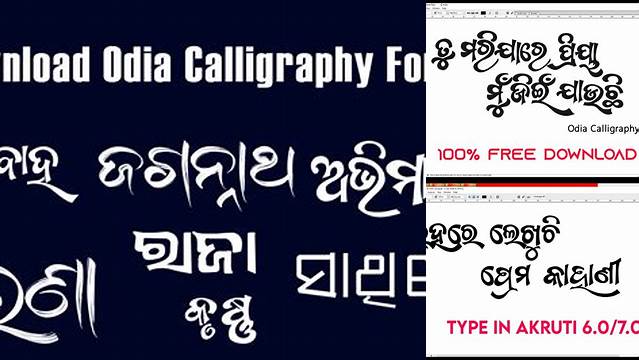
Create Odia Calligraphy Fonts Free: Generators & Tips
Are you looking to create stunning Odia calligraphy without spending a fortune? Look no further! In this article, we'll explore the world of free Odia calligraphy font generators, guiding you through the best options available and showing you how to create beautiful, eye-catching designs. Whether you're a seasoned designer or just starting out, these tools will help you elevate your Odia script projects.
Understanding Odia Calligraphy and Its Importance
Odia calligraphy, deeply rooted in the rich cultural heritage of Odisha, India, is an art form that transcends mere writing. It's a visual representation of the Odia language, imbued with historical significance and aesthetic beauty. The flowing curves and intricate strokes of Odia script lend themselves perfectly to calligraphy, creating designs that are both elegant and expressive. Understanding the importance of Odia calligraphy involves appreciating its role in preserving cultural identity and promoting artistic expression. The script itself is derived from the Kalinga script, which dates back to ancient times, and its evolution reflects the historical and cultural influences that have shaped the region. Calligraphy, in this context, is more than just decorative writing; it's a medium through which stories are told, traditions are honored, and artistic skills are showcased.
In modern times, the relevance of Odia calligraphy extends beyond traditional uses. It's increasingly being incorporated into graphic design, branding, and digital media to add a touch of authenticity and cultural flair. From wedding invitations to book covers, the distinctive style of Odia calligraphy can enhance the visual appeal and convey a sense of heritage. By using free Odia calligraphy font generators, designers and enthusiasts can easily access and utilize this art form, making it more accessible and ensuring its continued relevance in contemporary design. These tools democratize the art, allowing anyone with a passion for Odia culture to create stunning visual content that celebrates the beauty of the language.
Moreover, Odia calligraphy plays a crucial role in preserving and promoting the Odia language itself. In an era of globalization and increasing dominance of English and other major languages, maintaining the visibility and usage of regional languages is essential. Calligraphy helps to keep the Odia script alive and relevant, inspiring younger generations to learn and appreciate their linguistic heritage. By incorporating Odia calligraphy into everyday designs and artistic projects, we can ensure that the language continues to thrive and remains an integral part of the cultural landscape. The art form serves as a bridge between the past and the present, connecting people to their roots and fostering a sense of pride in their cultural identity.
Top Free Odia Calligraphy Font Generators
Let's dive into some fantastic free Odia calligraphy font generators that you can use right now. These tools offer a range of options, from simple text transformations to more advanced customization features.
1. Fontstruct
Fontstruct is a unique, browser-based font editor that allows you to create your own fonts using geometric shapes. While it's not specifically an Odia calligraphy font generator, it provides the tools you need to design your own custom Odia fonts. It's a bit more hands-on, but the results can be truly unique. The platform operates on a modular principle, where users construct glyphs from a grid of geometric shapes called "bricks." This method allows for a high degree of precision and control, making it possible to create intricate and stylized letterforms. The user interface is intuitive, with a drag-and-drop system that simplifies the design process. Although Fontstruct is primarily known for creating pixel-based and geometric fonts, its versatility enables users to experiment with different styles and techniques, including those relevant to Odia calligraphy.
To create Odia calligraphy fonts on Fontstruct, users would need a strong understanding of the Odia script and its calligraphic forms. The process involves carefully constructing each character, paying attention to the unique curves and strokes that define Odia writing. This can be a challenging but rewarding task, as it allows for complete customization and the creation of truly original fonts. The platform's grid-based system encourages precision, ensuring that each character is well-formed and consistent with the overall design. Additionally, Fontstruct's community features allow users to share their creations, collaborate with others, and gain inspiration from a wide range of font designs. This collaborative environment can be particularly valuable for those new to font design, providing opportunities to learn from more experienced users and receive feedback on their work.
Moreover, Fontstruct offers extensive documentation and tutorials to help users get started with the platform. These resources cover everything from the basics of font design to advanced techniques for creating complex glyphs. The platform also supports the import and export of font files, making it easy to integrate custom fonts into various design projects. While Fontstruct may require a steeper learning curve compared to simpler font generators, the level of control and customization it provides makes it an excellent choice for designers who want to create truly unique Odia calligraphy fonts. By combining creativity, technical skills, and a deep understanding of the Odia script, users can leverage Fontstruct to produce stunning and original typographic designs.
2. Calligraphr
Calligraphr is a web application that turns your handwriting into a font. You can draw Odia characters on paper, upload them, and the tool will convert them into a usable font file. This is a great way to personalize your Odia calligraphy and create something truly unique. The process begins with downloading a template from the Calligraphr website. This template consists of a grid with pre-defined spaces for each character, number, and symbol. Users then print out the template and hand-write or draw each character within its designated space. The key to a successful font lies in consistency, so it's important to maintain a uniform style and size for each character.
Once the template is filled, users scan or photograph it and upload the image to Calligraphr. The application then uses optical character recognition (OCR) technology to identify each character and convert it into a digital format. Users have the option to review and edit each character to ensure accuracy and make any necessary adjustments. This editing process is crucial for refining the font and correcting any errors that may have occurred during the OCR process. Calligraphr also allows users to add additional characters, symbols, and ligatures to further customize their font. This is particularly useful for creating Odia calligraphy fonts, which often involve complex combinations of characters and decorative elements.
After the editing process is complete, Calligraphr generates a downloadable font file in various formats, including TTF and OTF. Users can then install the font on their computer and use it in any application that supports custom fonts. This makes it easy to incorporate personalized Odia calligraphy into a wide range of projects, from digital documents to graphic designs. Calligraphr offers both free and paid plans, with the free plan allowing users to create a limited number of characters and fonts. The paid plans offer additional features, such as unlimited characters, commercial use licenses, and advanced customization options. Overall, Calligraphr is a user-friendly and versatile tool for creating personalized Odia calligraphy fonts from your own handwriting.
3. BirdFont
BirdFont is a free, open-source font editor that works on Windows, Mac, and Linux. It's a more advanced tool than some of the online generators, but it offers a lot of flexibility and control over your font design. With BirdFont, users can create and edit fonts from scratch, import existing fonts for modification, and export their creations in various formats, including TTF, EOT, and SVG. The software's intuitive interface and comprehensive feature set make it suitable for both beginners and experienced font designers.
One of the key features of BirdFont is its support for Bézier curves, which are essential for creating smooth and precise letterforms. Users can easily manipulate Bézier curves to shape the contours of each character, ensuring that the font looks professional and polished. BirdFont also includes a range of drawing tools, such as pencils, brushes, and erasers, which allow users to create intricate details and add unique stylistic elements to their fonts. The software's glyph editor provides a detailed view of each character, allowing users to fine-tune every aspect of its design. Users can adjust the spacing, kerning, and hinting of each glyph to optimize the font's appearance and readability.
BirdFont also supports the creation of ligatures, which are special characters that combine two or more letters into a single glyph. Ligatures are commonly used in calligraphy to create a more fluid and elegant appearance. With BirdFont, users can easily create custom ligatures for their Odia fonts, adding a touch of authenticity and artistry to their designs. The software's scripting capabilities allow advanced users to automate repetitive tasks and create custom tools for font design. BirdFont supports the Python scripting language, which provides a powerful and flexible way to extend the software's functionality. Overall, BirdFont is a comprehensive and versatile font editor that offers everything you need to create stunning Odia calligraphy fonts. Its free and open-source nature makes it accessible to everyone, and its extensive feature set ensures that you have the tools you need to bring your creative vision to life.
Tips for Designing Beautiful Odia Calligraphy
Creating beautiful Odia calligraphy involves more than just using a font generator. Here are some tips to help you achieve stunning results:
- Understand the Basics: Familiarize yourself with the fundamental strokes and shapes of the Odia script.
- Practice Regularly: Like any art form, calligraphy requires practice. Dedicate time to honing your skills.
- Experiment with Styles: Try different weights, slants, and flourishes to find a style that suits your taste.
- Pay Attention to Spacing: Proper spacing between letters and words is crucial for readability and visual appeal.
- Use High-Quality Tools: If you're drawing by hand, invest in good-quality pens and paper.
Integrating Odia Calligraphy into Your Projects
Once you've created your Odia calligraphy, you can integrate it into various projects, such as:
- Wedding Invitations: Add a touch of elegance and tradition to your special day.
- Posters and Banners: Create eye-catching promotional materials with a unique cultural flair.
- Logos and Branding: Develop a distinctive brand identity that reflects your heritage.
- Social Media Graphics: Enhance your online presence with beautiful Odia calligraphy.
- Personal Art Projects: Express your creativity and celebrate your culture through art.
With these free Odia calligraphy font generators and tips, you're well-equipped to create stunning designs that showcase the beauty of the Odia script. So go ahead, experiment, and let your creativity flow! Remember, the key is to practice and have fun while exploring this beautiful art form. Whether you're designing wedding invitations, creating logos, or simply expressing your artistic side, Odia calligraphy offers a unique and captivating way to connect with your cultural heritage and share it with the world. Embrace the opportunity to experiment with different styles, techniques, and tools to find what works best for you, and don't be afraid to push the boundaries of traditional calligraphy to create something truly innovative and unique.